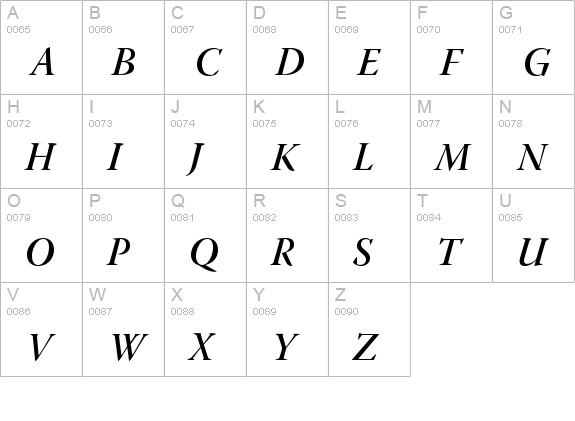
Warnock Pro Semibold Italic Display Font Details
Warnock Pro Semibold Italic Display is a sub-bold, structured, italic variant in the Warnock typeface family \xE2\x80\x94 well suited to sub-headlines and emphasised passages.
Warnock Pro Semibold Italic Display is a stunning font that exudes elegance and sophistication. With its bold and slanted characters, this font is sure to make a powerful statement in any design project. Whether it's for a high-end fashion brand, a luxury magazine, or a sleek corporate presentation, Warnock Pro Semibold Italic Display will effortlessly elevate your design to new heights. The semi-bold weight of this font gives it a strong presence, while the italic slant adds a touch of dynamism and flair. It strikes the perfect balance between professionalism and creativity, making it ideal for both formal and contemporary designs. The refined letterforms and subtle curves create a harmonious and pleasing visual experience. One of the greatest advantages of Warnock Pro Semibold Italic Display is that it is freely available to download at FontsMarket.com. This means that you can add this exceptional font to your collection without any cost. Whether you are a professional designer or a passionate enthusiast, having access to such a high-quality font for free is truly a gift. The versatility of Warnock Pro Semibold Italic Display is another reason to love this font. It can be easily paired with other typefaces to create beautiful combinations and unique typography treatments. Its legibility and readability ensure that your message will be delivered with clarity and impact, even in small sizes or challenging design contexts. Warnock Pro Semibold Italic Display is a font that demands attention and leaves a lasting impression. Its stylish and refined aesthetic is perfect for projects that require a touch of sophistication and class. From logos and branding materials to editorial layouts and advertising campaigns, this font will effortlessly elevate your designs to the next level. So, if you are looking for a versatile and visually striking font that is freely available to download, look no further than Warnock Pro Semibold Italic Display. Visit FontsMarket.com today and discover the endless possibilities that this exceptional font has to offer.